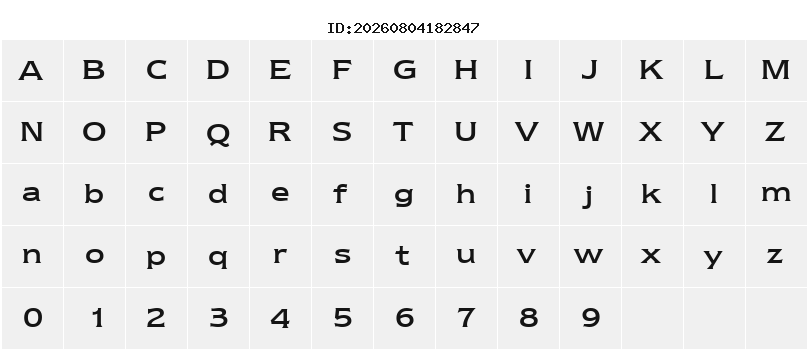
Newtext Rg BT Preview
• Font Name: Newtext Rg BT
• Font ID: ITC Newtext Regular, Copperplate 421
• Full Font Name: Newtext Regular BT
• PostScript Name: NewtextITCbyBT-Regular
About Newtext Rg BT.ttf
Newtext Rg BT.ttf is a modern, elegant sans-serif font designed for ultimate readability and visual harmony. Perfect for branding, headlines, web design, and print materials.